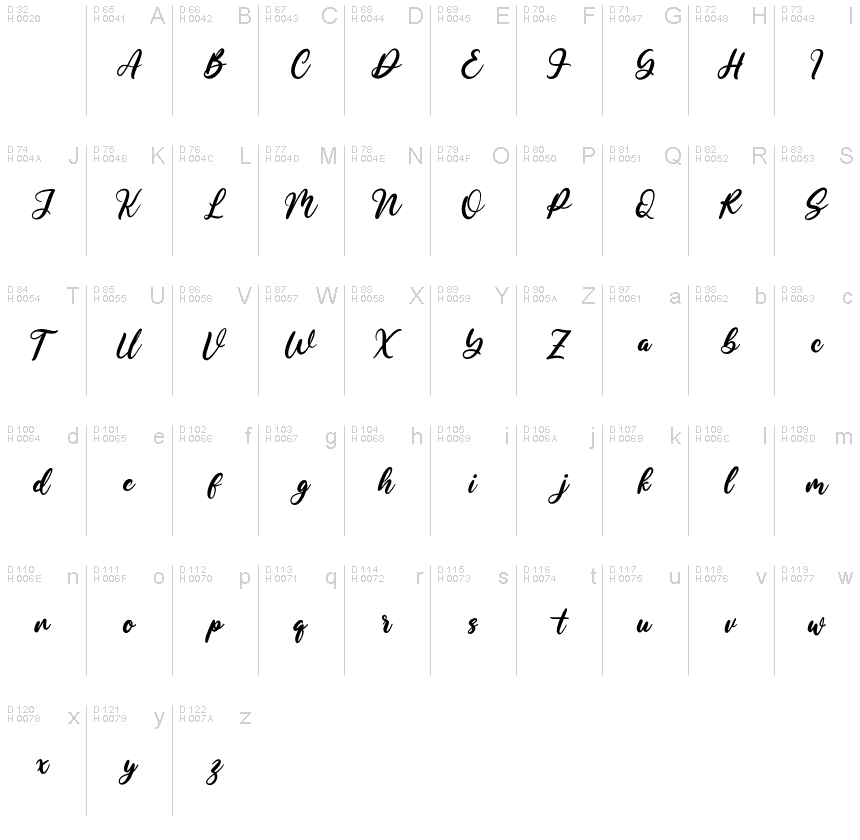
Algetura Free Regular
Algetura, a captivating calligraphy font crafted by the talented designer Maulana Creative, brings elegance and artistry to any project. With its fluid strokes and graceful curves, Algetura is perfect for adding a touch of sophistication to wedding invitations, luxury branding materials, or high-end fashion campaigns. This versatile typeface effortlessly conveys a sense of refinement and beauty in every character. Whether you're designing exquisite stationery or creating visually stunning advertisements, Algetura's calligraphic charm will captivate your audience and elevate your projects to new heights.